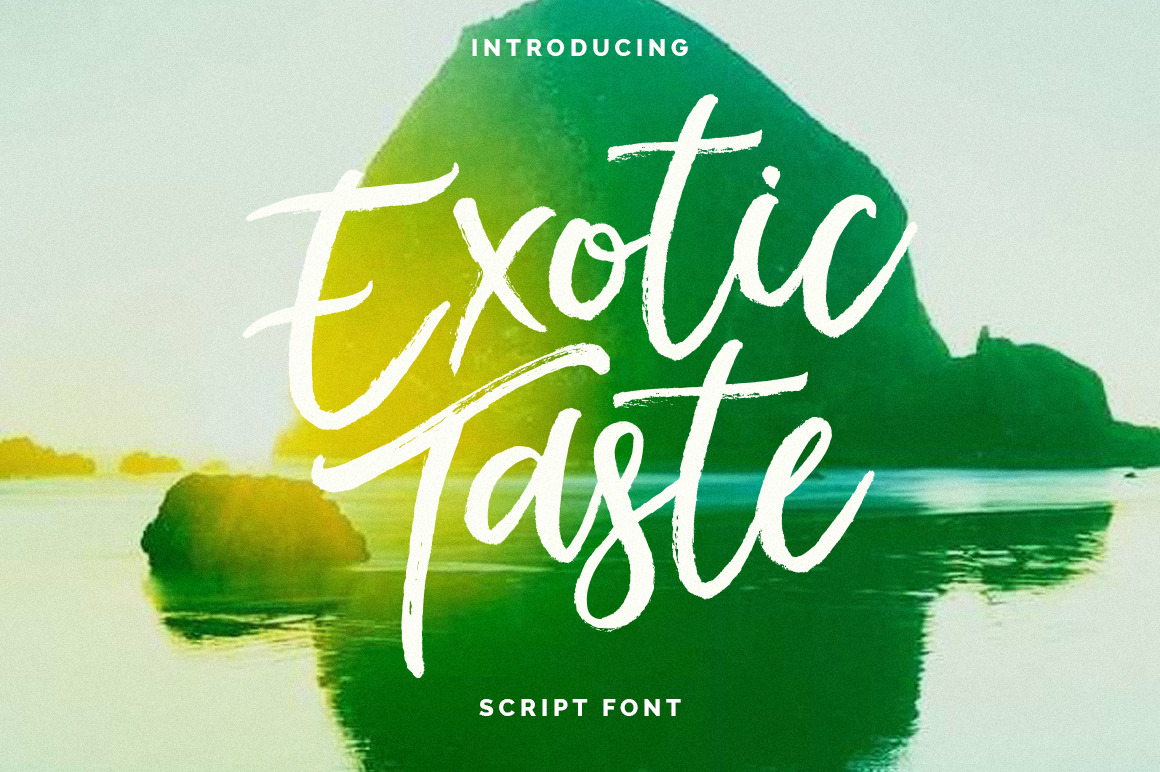
New! ExoticTaste Script Font
Introducing New! Exoic Taste Script Font. Every detail is natural and exotic. Carefully made. You can create your own designs with the fluff and natural texture. It's the perfect choice for personal branding projects, handwritten quotes, homeware designs, product packaging - or simply as a modern & stylish text overlay to any background image.
You can choose from a wide variety of designs, from greeting card designs, poster / flyer designs, apparel / t-shirt designs to web designs.